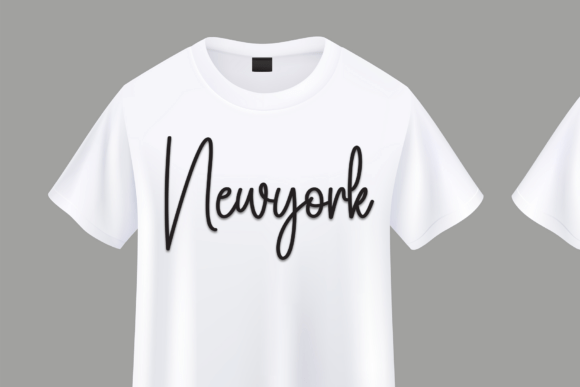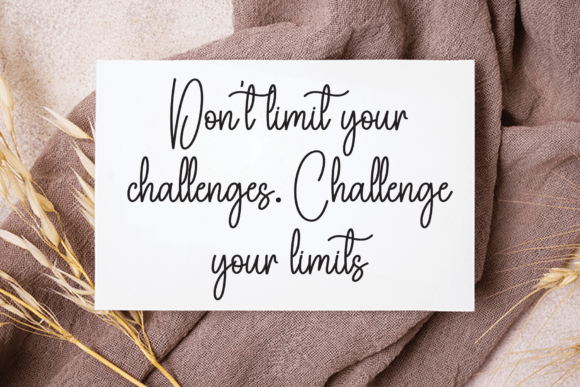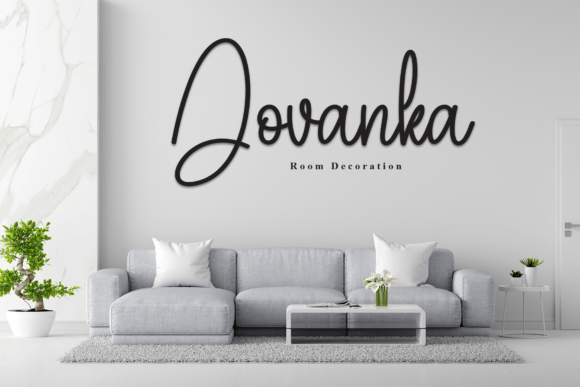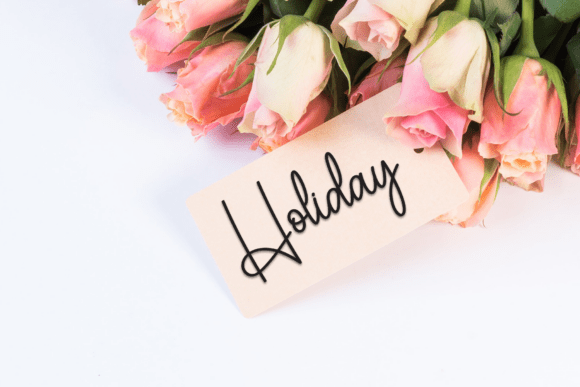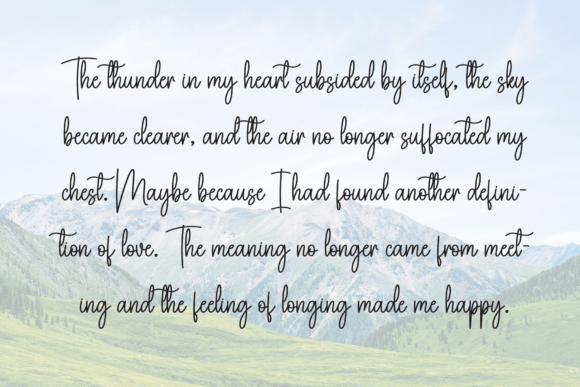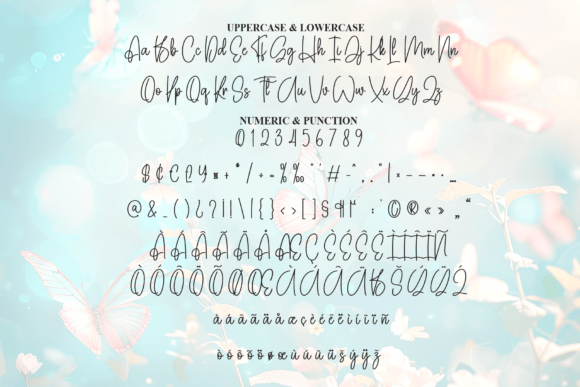
The Perfect Script for a Beautifully Imperfect Design
As a designer, have you ever stared at a blank page, waiting for the perfect font to come to life? You know, that magical moment when everything clicks, and your vision starts to take shape. For me, it’s when the words begin to flow, and the characters dance across the screen. It’s in those moments that I fall in love with the Butterfly Calligraph Font, a stylish handwritten script that captures the essence of elegance and playfulness.
With its flowing curves and natural rhythm, Butterfly Calligraph Font is the perfect addition to any design project. Whether you’re creating invitations, branding materials, or social media posts, this font adds a personal, charming touch that sets your work apart. Its unique design brings warmth, sophistication, and creativity to any project, making it a valuable asset for designers looking to elevate their craft.
Butterfly Calligraph Font Features
- Unique Characteristics: Butterfly Calligraph Font features beautiful, flowing script letters with subtle flair and elegance, perfect for adding a touch of sophistication to wedding invitations, quotes, and other creative projects.
- Style Variations: The font comes with 2 styles: Regular and Bold, allowing designers to create contrasting text effects and add depth to their designs.
Designer Review: Butterfly Calligraph Font
I recently had the chance to work with the Butterfly Calligraph Font, and I must say it’s a lovely addition to any project that requires a touch of elegance. ✨ Here are some of its strengths:
- ✨ Beautifully crafted letters with a delicate, hand-written feel
- ✨ Versatile and suitable for various design projects, from wedding invitations to branding materials
- ✨ High-quality vector files make it easy to scale and manipulate the font without losing its charm
However, like any font, it’s not without its limitations: ⚠️ Here are a few things to consider:
- ⚠️ Limited character set, which may not be ideal for projects requiring extensive typing
- ⚠️ May not be suitable for large blocks of text, as the calligraphic style can become overwhelming
- ⚠️ Some letters may require adjustments to achieve perfect spacing and alignment
Overall, I think the Butterfly Calligraph Font is a great choice for designers who want to add a touch of whimsy and sophistication to their projects. With a little creativity and patience, its limitations can be overcome, and the results can be truly stunning.
Use the Butterfly Calligraph Font for creating elegant and whimsical designs.
Combine the font with watercolor textures or floral patterns for a romantic look.
Use the font in small text sizes for a delicate and refined appearance.
Baby shower invitations and decorations
Anniversary and birthday cards
Wedding and event branding
What is the recommended font size for optimal readability with the Butterfly Calligraph Font?
For optimal readability, we recommend using font sizes between 12pt and 24pt. This will ensure the delicate strokes and flourishes of the font are displayed clearly without becoming too small or too large.